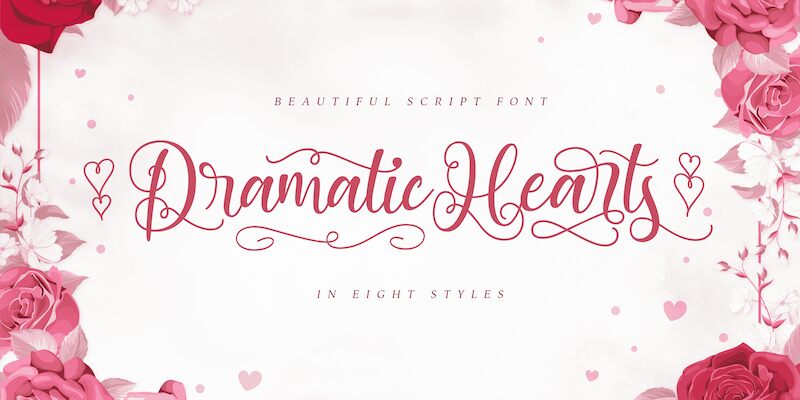
Dramatic Hearts Bold Italic font is a quality calligraphy typeface designed by Mans Greback.
Use the parenthesis characters ( ) [ ] { } for decorative heart symbols.
Use underscore _ anywhere in a word for swashes.
Example: Restau_rant
Use multiple underscore for different swashes.
Example: Crea___tives